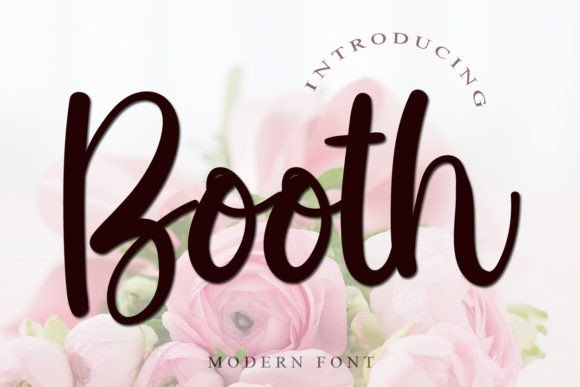
Dive into the world of elegance and sophistication with Booth Font, a script font family that captures the essence of modern calligraphy. Experience the unparalleled beauty of Booth Font and elevate your designs to new heights.
Crafted with meticulous attention to detail by the visionary artist ABBAsalam, Booth Font exudes a timeless charm that resonates with your audience. Its graceful curves and delicate strokes create a visually appealing aesthetic that will leave a lasting impression.
Unleash your creativity with Booth Font and explore a vast spectrum of design possibilities. Whether you're crafting YouTube banners, designing captivating logos, creating elegant wedding invitations, or producing professional ID cards and flyers, Booth Font will transform your ideas into extraordinary works of art.
Immerse yourself in the simplicity and uniqueness of Booth Font. Its clean lines and distinctive characters make it the perfect choice for businesses seeking to establish a strong brand identity. With Booth Font, your business will leave an unforgettable mark on your customers' minds.
Elevate your designs and captivate your audience with the allure of Booth Font. Its versatility knows no bounds, allowing you to effortlessly elevate presentations, create visually stunning social media posts, develop eye-catching marketing materials, and design breathtaking websites.
Experience the transformative power of Booth Font today and witness the magic it brings to your creative endeavors. Embrace the elegance and sophistication of Booth Font and embark on a journey of design excellence.